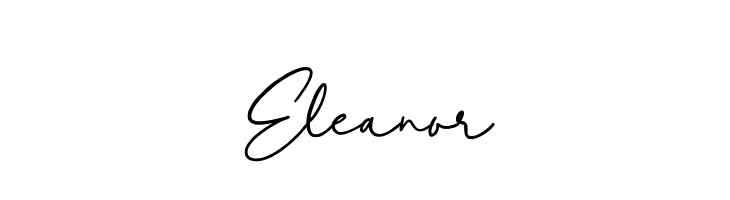
A lively and expressive handwritten font with fluid strokes and playful loops.
A lively and elegant script font with flowing, interconnected letterforms.
A graceful script font with flowing, connected letters and ornate uppercase characters.
A graceful, cursive script font with elegant, flowing lines.
A sophisticated script font with flowing, elegant letterforms.